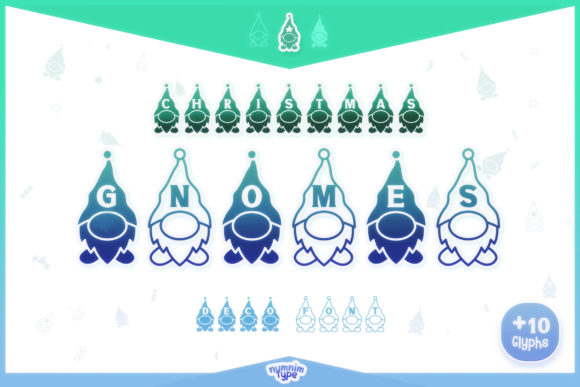
Prepare to be enchanted by Christmas Gnomes Font, a captivating decorative typeface meticulously crafted to ignite the magic of Christmas all year round. As a creation of the renowned designer numnim, this font family embodies the spirit of the season with every stroke and glyph, promising to transform your designs into a winter wonderland.
Indulge in a festive extravaganza as each character dances across your screen, exuding an aura of joy and whimsy. The playful nature of Christmas Gnomes Font makes it the perfect choice for adding a touch of whimsy to your Christmas cards, invitations, and social media posts. Embrace the nostalgia and warmth of the holiday season with every word you type, capturing the essence of Christmas cheer.
Dive into the enchantment of Christmas Gnomes Font and unlock a world of creative possibilities. Its versatility extends beyond the realm of Christmas, effortlessly lending its charm to any project that calls for a touch of magic and wonder. Whether you're crafting enchanting logos, captivating posters, or heartwarming packaging designs, Christmas Gnomes Font will effortlessly elevate your creations to new heights of festive enchantment.
Experience the transformative power of Christmas Gnomes Font and let your imagination soar. Its captivating curves and enchanting details will add a touch of festive magic to any project, spreading joy and cheer with every letter. Embrace the spirit of Christmas and spread the warmth of the season through your designs. Download Christmas Gnomes Font today and let the enchantment begin!